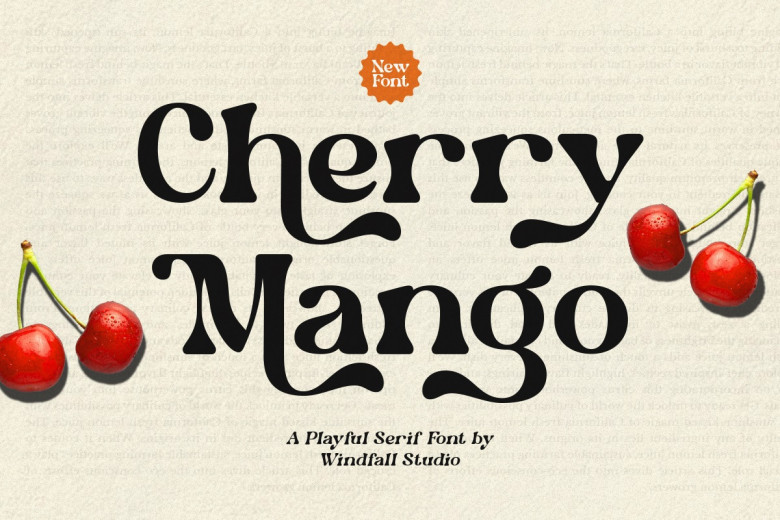
Cherry Mango Font
Here is Cherry Mango – a new ligature serif lettering designed by Windfall Studio to give you the wink. This festive font appears funny but also has some filigree appearance, which puts it to the usage in numerous artistic works. Happiness is having Cherry Mango as a font in your work, whether you are working on headlines, bright posters, or gentle wedding invitations.
This function has the most precisely defined serifs and sketched curves, so that it looks both elegant and playful. Perfect for logo designing, food wrappers, social media banners, and many others, Cherry Mango blends perfectly well with any design and has a vintage look with a twist of the new.
Bring ideas to the next level with Cherry Mango, and allow the sophistication of this font to give free reign to your imagination. Ideal for anyone looking for keywords such as serif, playful, retro, elegant, stylish, branding, and any other type, Cherry Mango is that font that gives your designs that hint of happiness and finesse.
Cherry Mango Serif Font